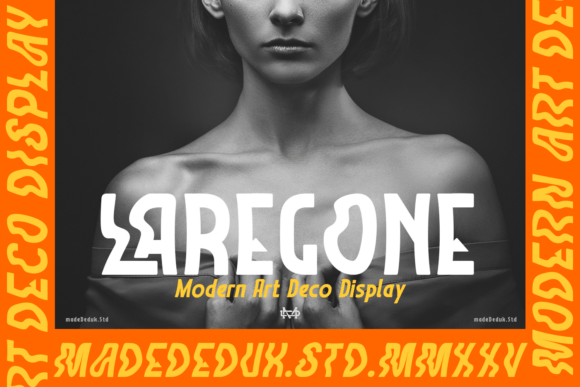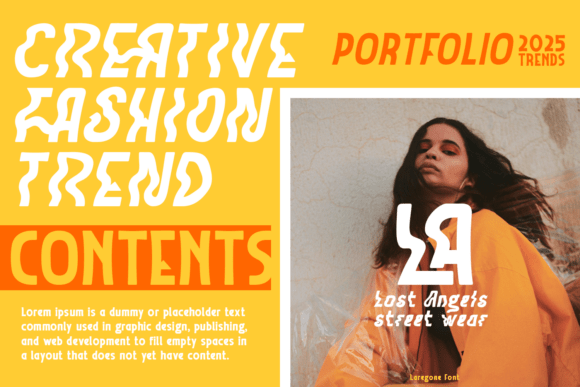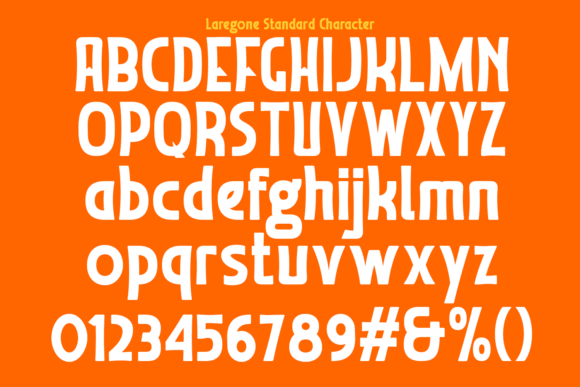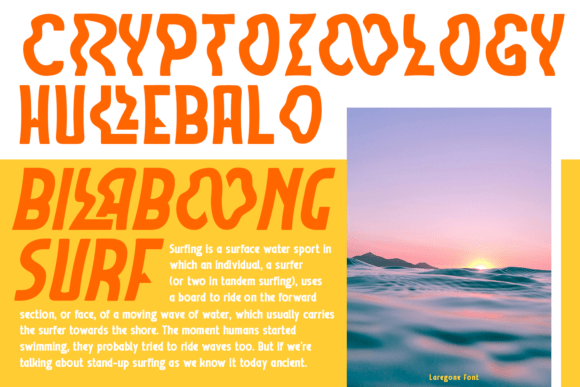
Laregone Font: Unique Art Deco Display Font for Logo Design & Branding
About the Laregone Font
Discover the charm of Laregone Font. This font is a perfect blend of modern aesthetics and classic appeal. A new modern Art Deco display font with unique, luxury, wave, vintage, and classy look to make their design look more unique and classic. Ligatures and alternative characters to help you create variations for your creative needs. Perfect for branding, logo, apparel, invitations, social media, packaging, label, photography, and any projects.
Laregone’s bold, Art Deco styling makes it ideal for headlines, logos, and short, impactful text in branding materials, posters, and packaging. Its distinctive forms work exceptionally well for luxury goods, vintage-inspired projects, and applications requiring a touch of classic elegance. Avoid using Laregone for body text or extended reading; its decorative nature compromises readability in longer passages.
For a balanced aesthetic, pair Laregone with a clean sans-serif like Montserrat or a more geometric typeface such as Futura for a modern contrast. A subtle serif like Garamond can add a touch of traditional refinement, tempering the boldness of Laregone while maintaining a sophisticated feel. Using a script font sparingly can enhance invitations or packaging designs.
The font projects an air of confident sophistication, making it suitable for brands aiming for a timeless yet modern image. Its versatility allows for use across various applications, but its strength lies in its ability to create a memorable visual impact through its unique form and decorative details.
Laregone Font Usage Examples
Laregone Font Example